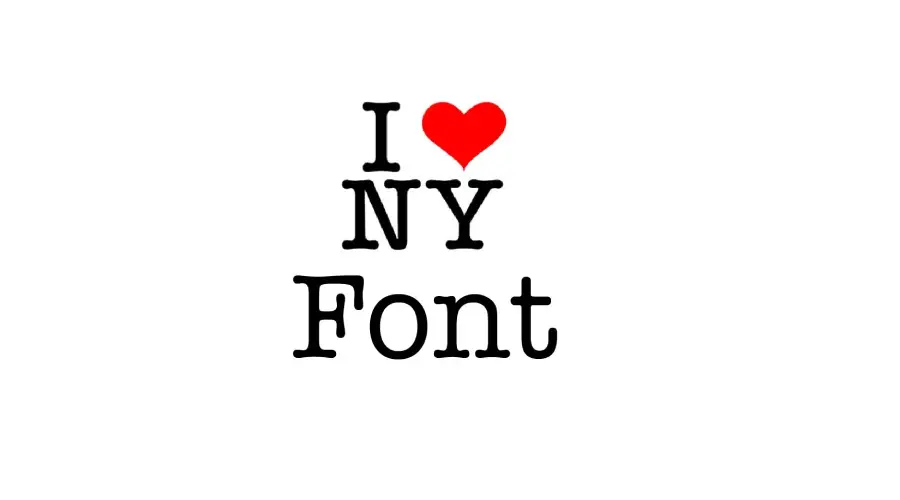
I Love NY Font
The I Love NY font comes from the famous I Love New York (I ❤ NY) globally recognized marketing campaign. The logo was created in 1977 by Milton Glaser, a legendary American graphic designer. Its purpose was to boost tourism and morale in New York State during a period of severe economic crisis, urban decay, and rising crime in New York City.
I Love NY logo vs American Typewriter Font Similarity Example
i ❤ ny shirt
Milton Glaser hand-drew the “I ❤ NY” logo in 1977: the “I” and “NY” are custom, slightly uneven slab-serif letters, and the red heart “❤” replaces the word “love.” Beneath it, “New York” is set in a slim, compressed sans-serif similar to American Typewriter. Since every character was sketched from scratch, no official font was ever released.
I Love NY logo vs American Typewriter Font Similarity Example
Lesser-Known Facts
Similar fonts
• Staff Meeting Plain Font by SharaWeber. From our perspective and observation, this font looks very similar to the “I ❤ NY” logo.
• American Typewriter is a slab-serif font created by Joel Kaden and Tony Stan. However, American Typewriter isn’t a free font. So you must purchase a license before downloading. But we have a free alternative for you! It is called Typewriter Serial Bold by SoftMaker.
• Selectric Melt Regular Font by Indian Summer Studio.
• Memotype Regular Font by Jerak Durzan.
• Typist Font by Christopher Latham Sholes.